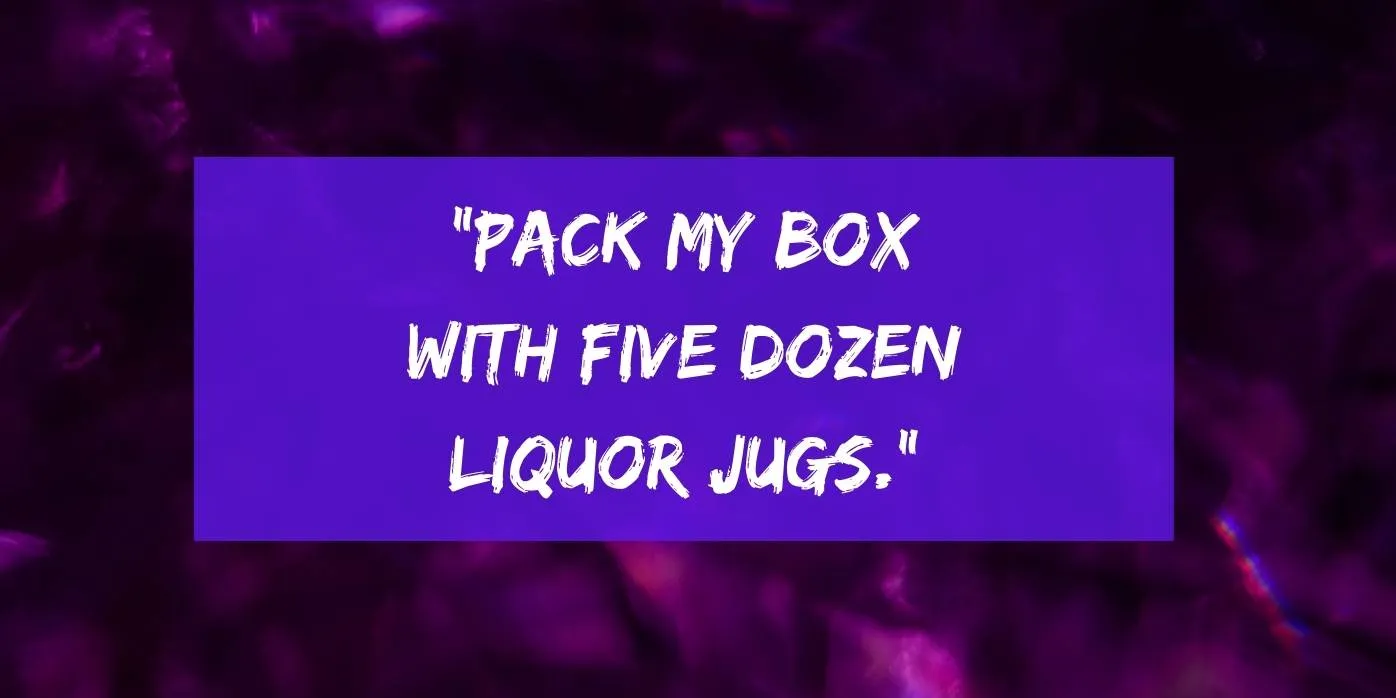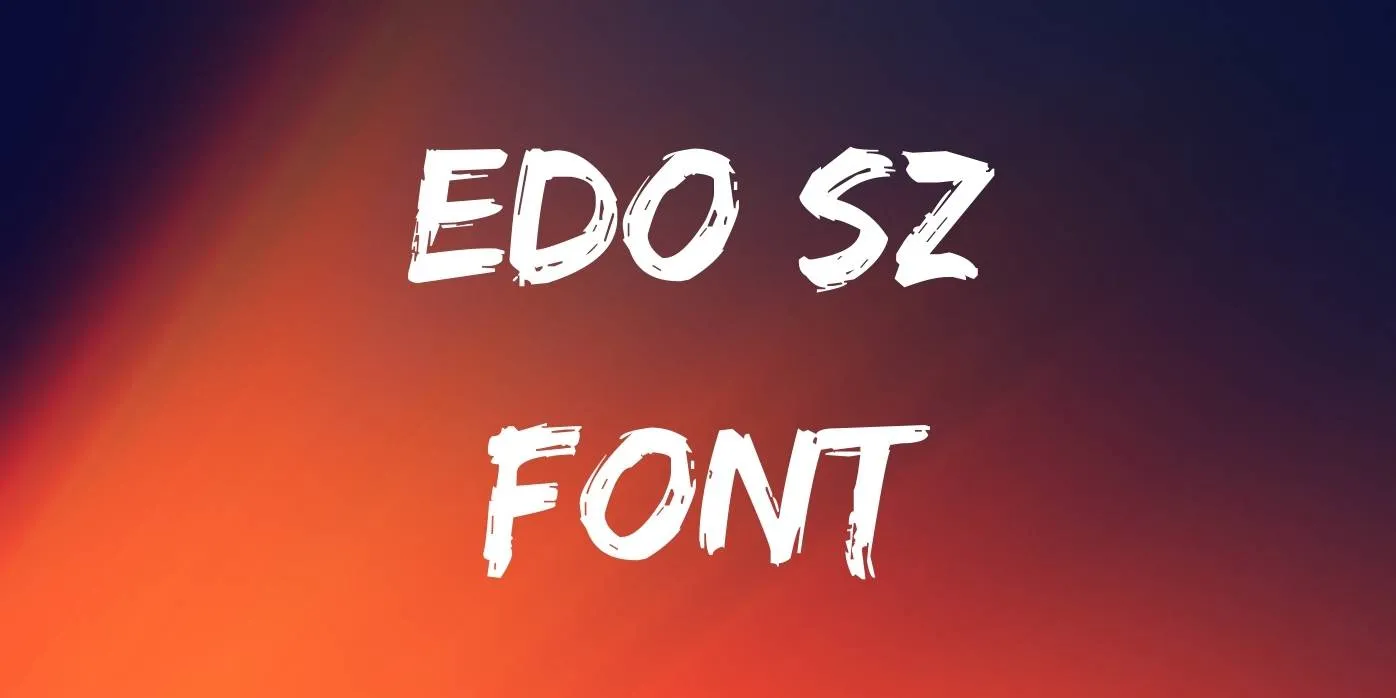
Edo SZ Font
Edo SZ Font was developed by a Japanese typeface designer, Vix Fieger in 2016. It is a Brush typeface that is characterized by its unique and playful style. As the name suggests, it was inspired by the Edo period in Japan, which was from 1603 to 1868. It has a very distinct look that can be used to add personality and flair to your designs.
It is perfect for CSS. This stylish typeface has 8 weights, each with a corresponding italic version. It also has a wide range of OpenType features, including ligatures, alternates, and stylistic sets. This makes it very versatile and suitable for a wide range of applications.